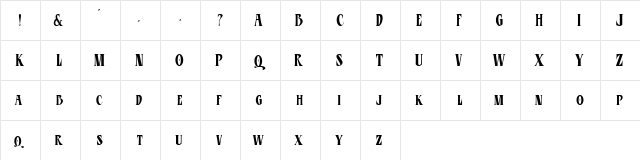
BLU Esoteric Condensed
Design Context for BLU Esoteric Typeface
BLU Esoteric is a composed and adaptable typeface that performs quietly and consistently across a wide range of design contexts. Its narrow stance lets it pack a punch even in space-constrained designs.
Pro Tip: Pair BLU Esoteric with a font of contrasting weight or personality to build a more expressive typographic hierarchy.